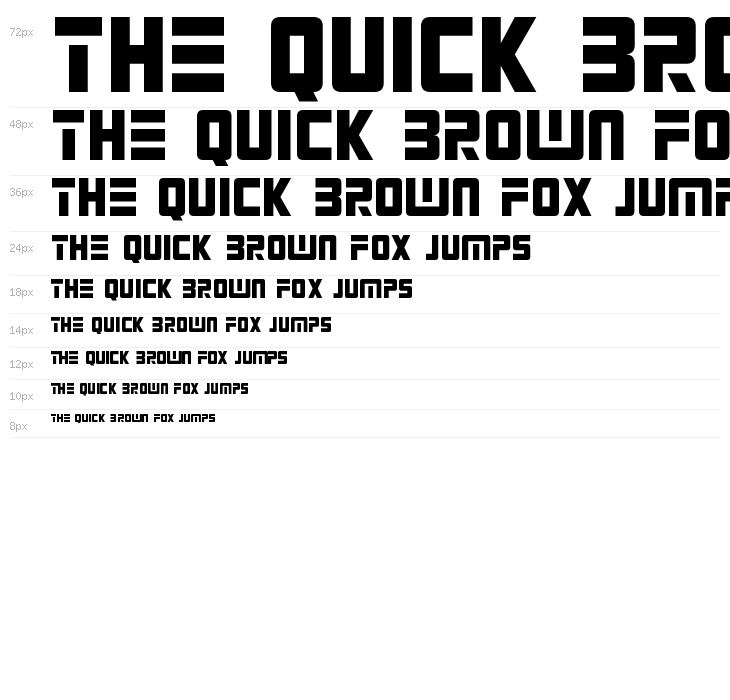
Alien Android Font
Alien Android Description
This font features a bold, futuristic design with a distinctly geometric and blocky appearance. The characters are uniformly thick, with sharp angles and a consistent stroke width that gives it a strong, impactful presence. The uppercase letters are particularly striking, with a uniform height and width that create a cohesive look. The numerals and special characters maintain this bold style, ensuring readability and visual consistency across all elements. The font's design is reminiscent of digital or sci-fi themes, making it ideal for projects that require a modern and technological aesthetic.
| Proposed Projects | Ideal for tech-related branding, sci-fi movie posters, video game titles, and digital interfaces. |